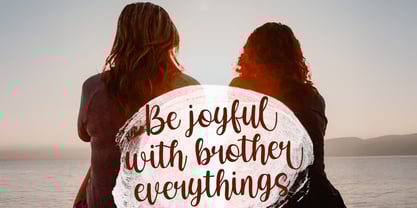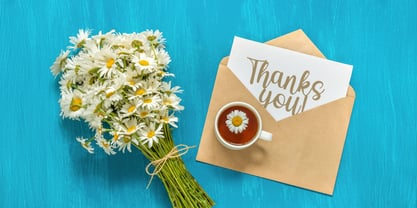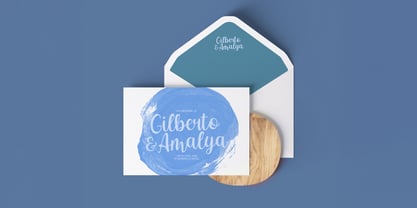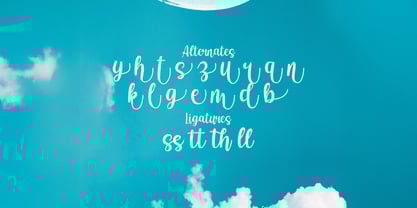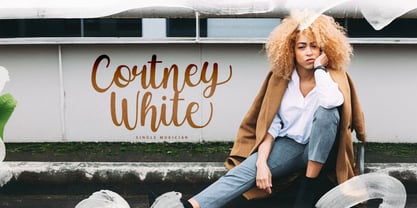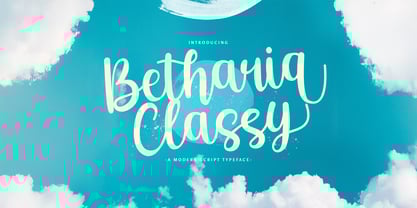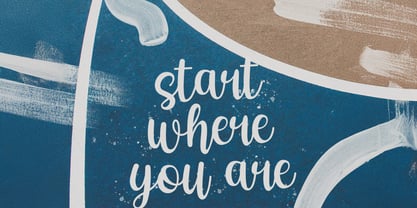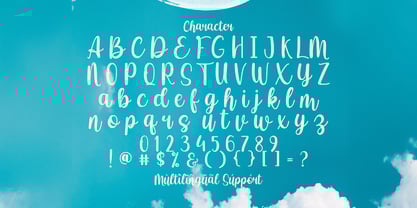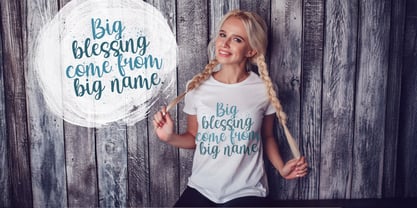
Betharia Classy
von Stringlabs Creative Studio
Die Schriftfamilie Betharia Classy wurde von Virgiawan Listanto entworfen und von Stringlabs Creative Studio veröffentlicht. Betharia Classy enthält 1 Stile.
Betharia Classy is a refined and elegant modern script font that exudes sophistication and charm. With its smooth, flowing curves and contemporary design, this font brings a touch of luxury to any project. Elevate your designs with Betharia Classy the modern script font that brings class and elegance to every project.
Designer: Virgiawan Listanto
Herausgeber: Stringlabs Creative Studio
Foundry: Stringlabs Creative Studio
Eigentümer des Designs: Stringlabs Creative Studio